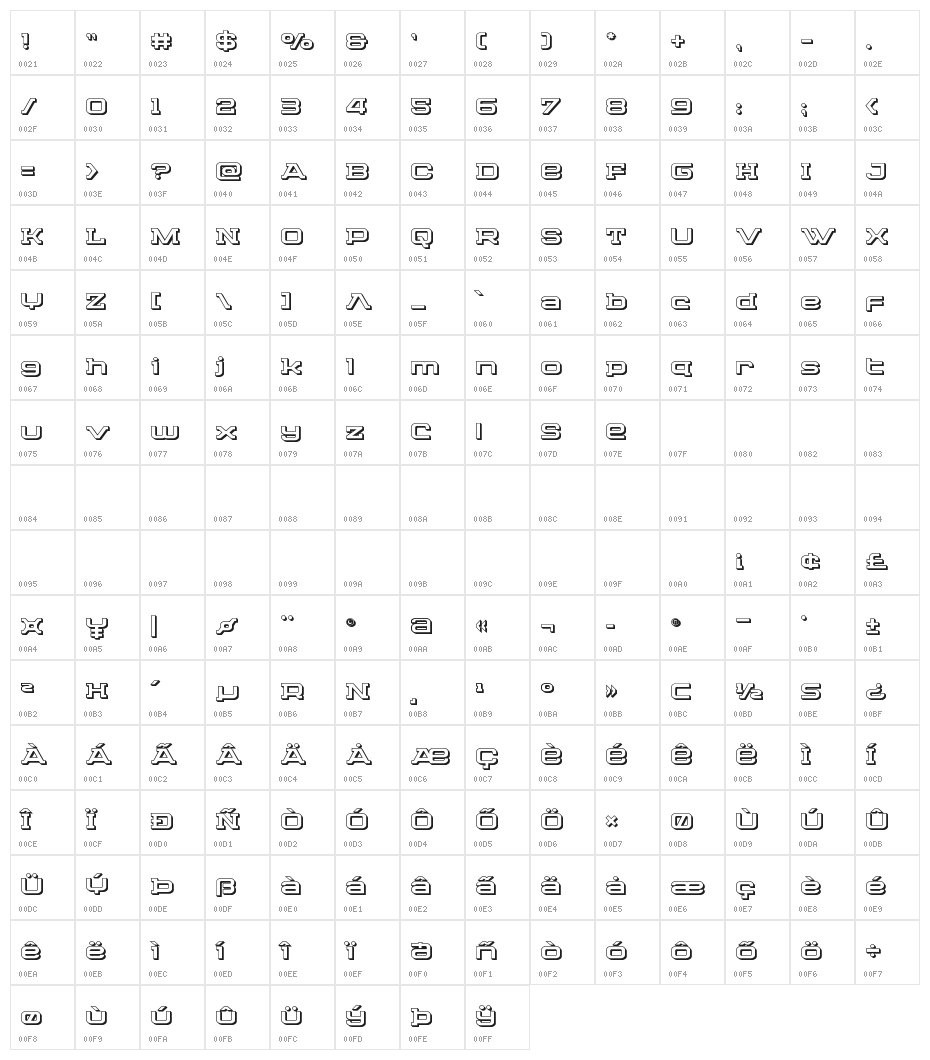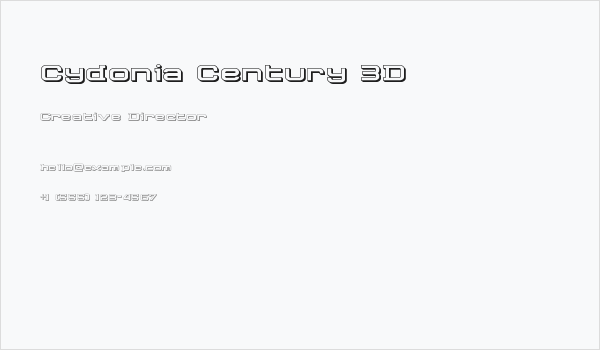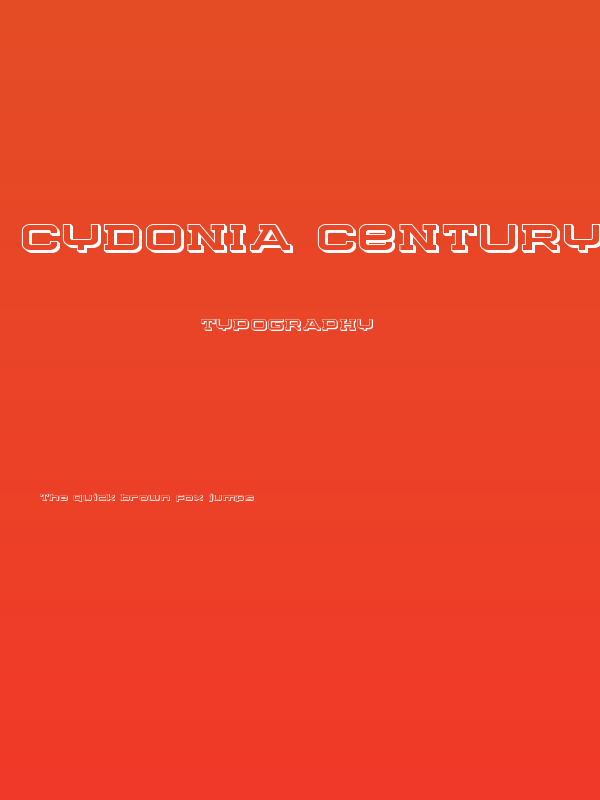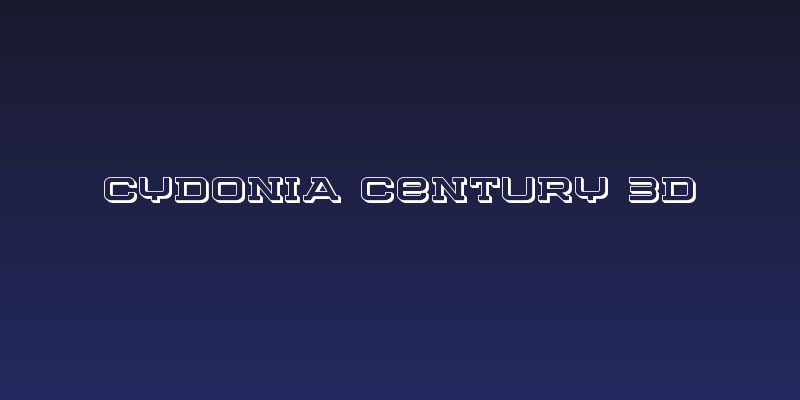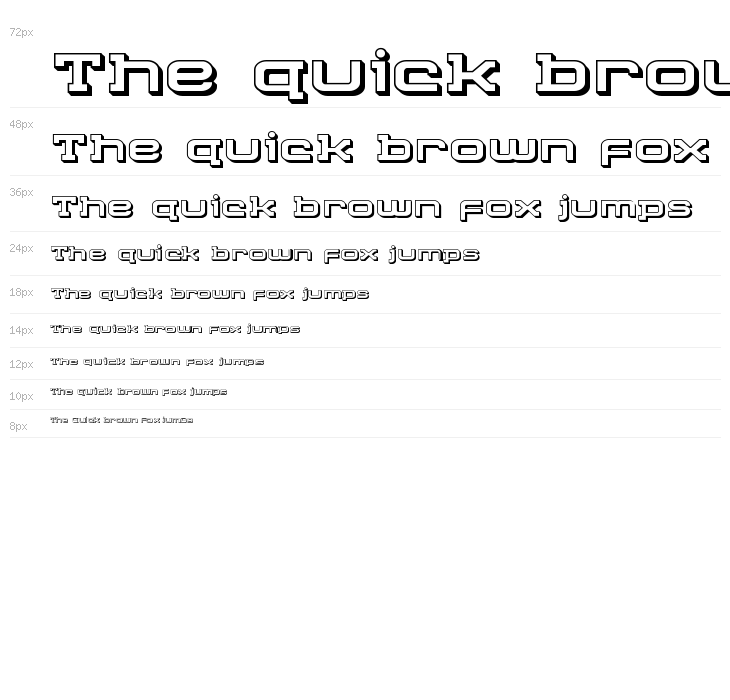
Cydonia Century 3D Font
Cydonia Century 3D Description
This font features a bold and dynamic 3D effect, giving each character a sense of depth and dimension. The uppercase and lowercase letters are designed with a consistent geometric style, characterized by clean lines and sharp angles. The numbers and special characters maintain this cohesive look, ensuring versatility across various uses. The font's unique outline adds a modern and futuristic touch, making it stand out in any design. Its structured appearance is both eye-catching and readable, suitable for projects that require a strong visual impact.
| Proposed Projects | Ideal for posters, logos, video game graphics, and futuristic-themed designs. |